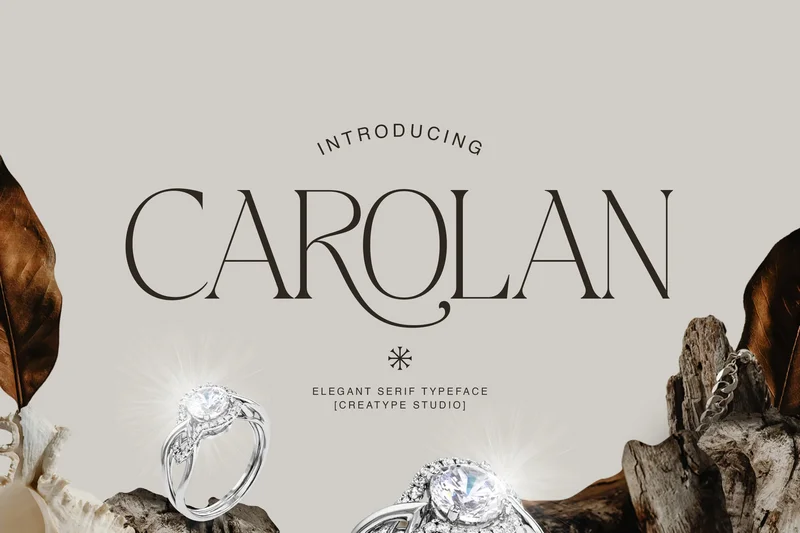
Carolan Elegant Display Serif
Introducing Carolan — an elegant display serif with couture poise and a whisper of classic romance. Its high-contrast strokes, crisp wedge serifs, and graceful swashes (spot that sweeping R/O curve) bring the “luxury editorial” vibe to any layout without trying too hard.
Ton of glyphs
Ligature & Alternate